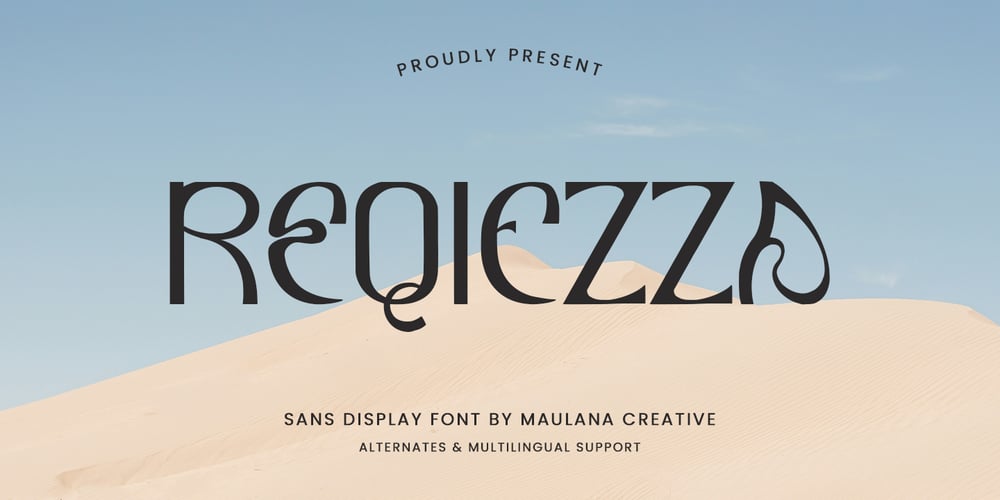
MC Reqiezza
MC Reqiezza font
MC Reqiezza Font Family was designed by Gilang Maulana and published by Maulana Creative. MC Reqiezza contains 1 styles and family package options. Reqiezza decorative display font. With sharp bold stroke, fun character with a alternates. To give you an extra creative work. Reqiezza font support multilingual language. This font is good for logo design, Social media, Movie Titles, Books Titles, a short text even a long text letter and good for your secondary text font with script or serif. Make a stunning work with Reqiezza font.Cheers,Maulana Creative